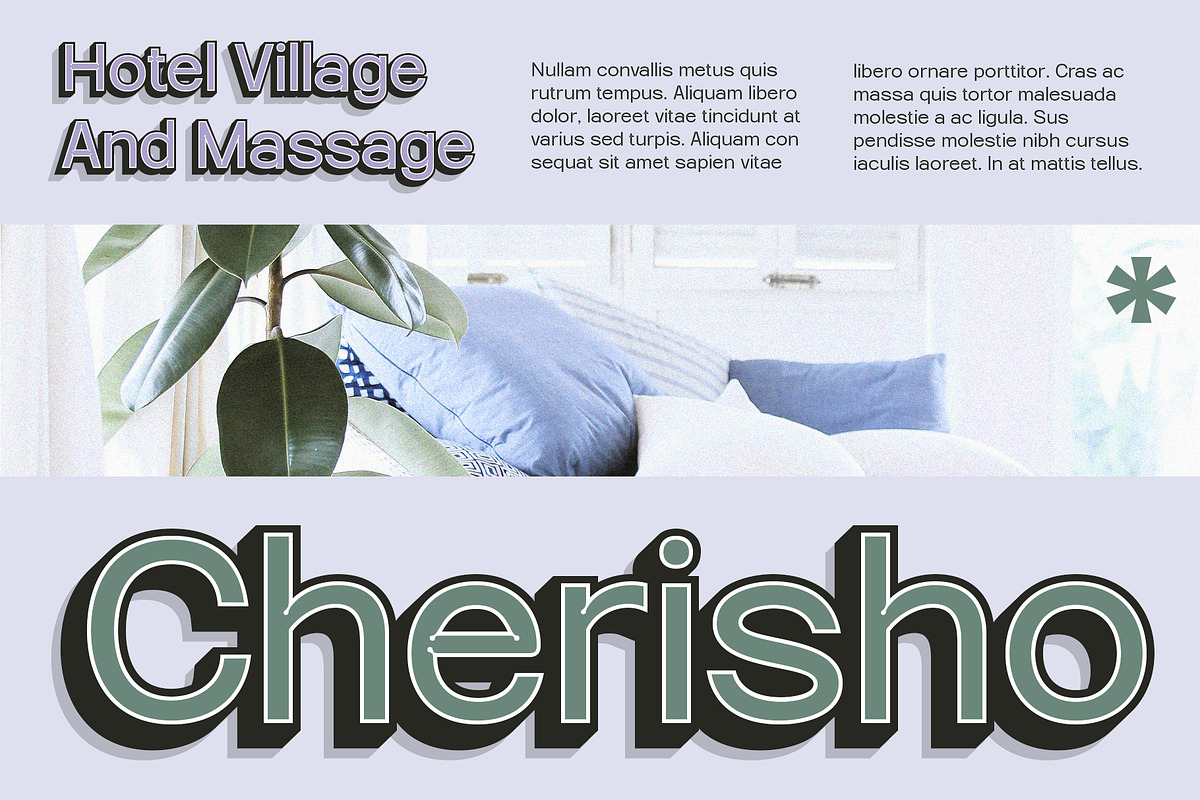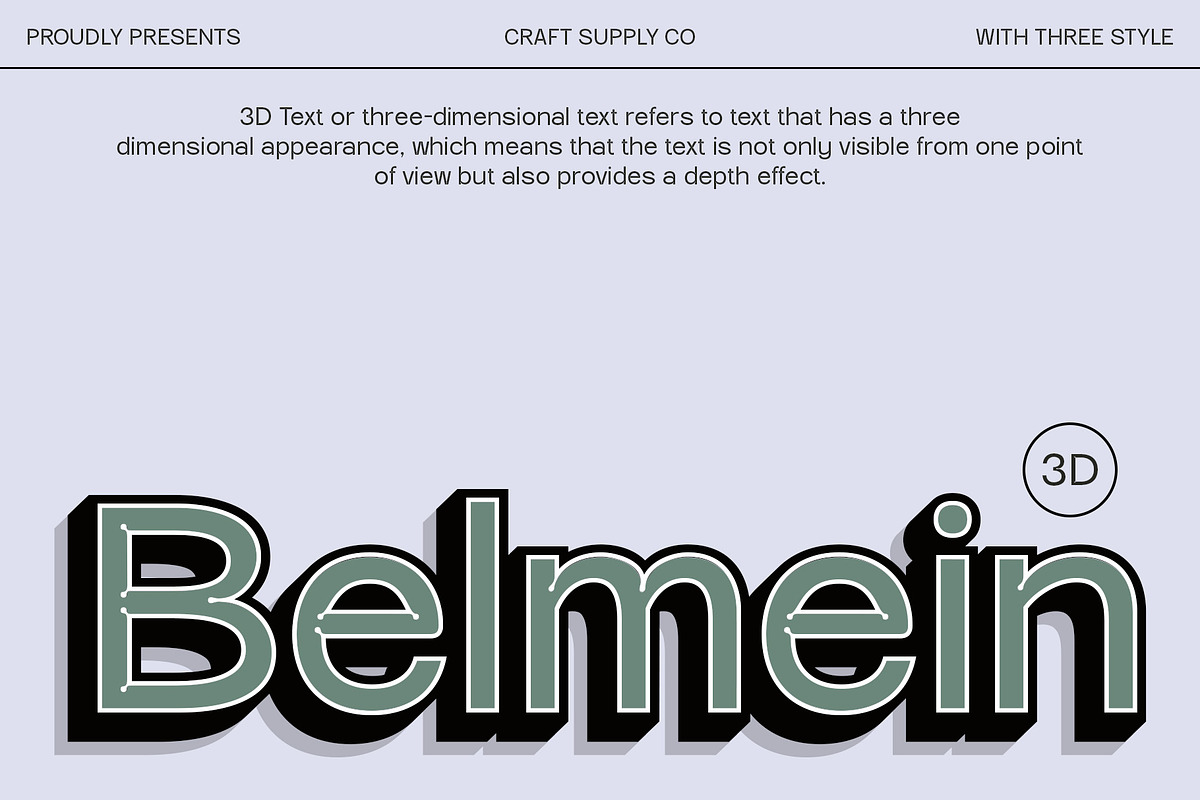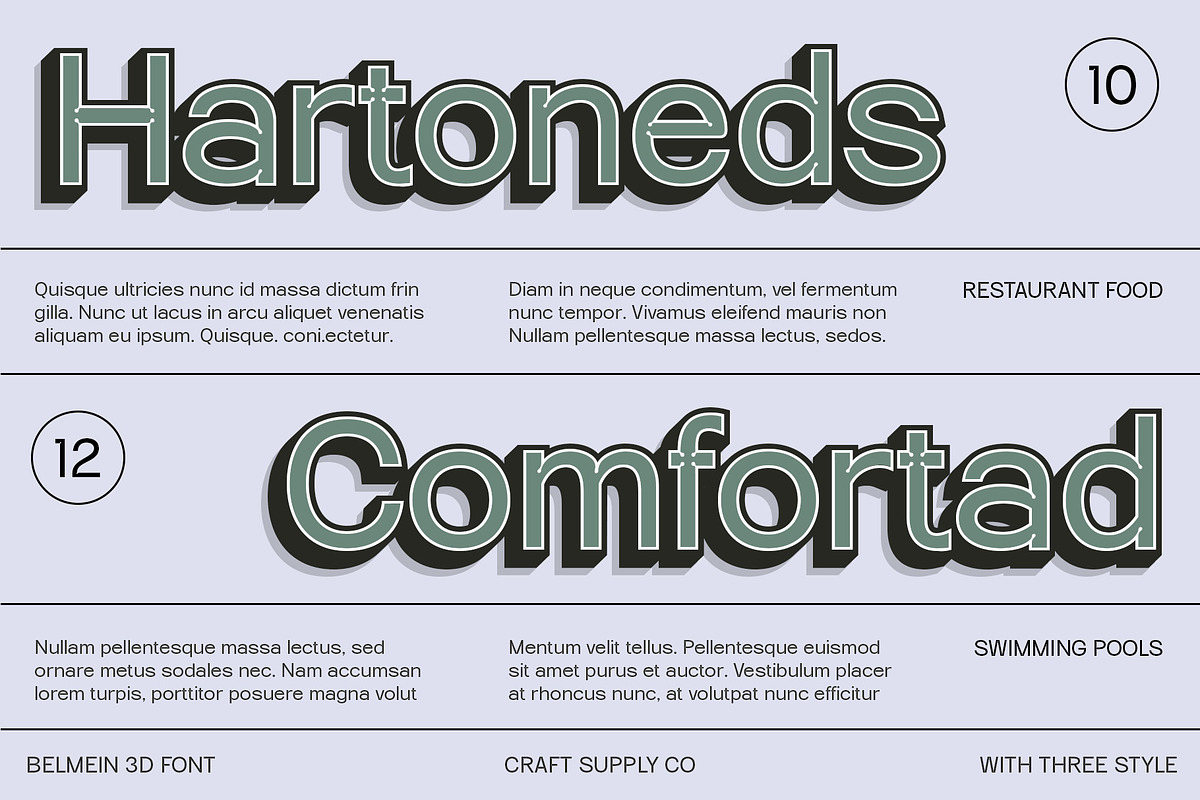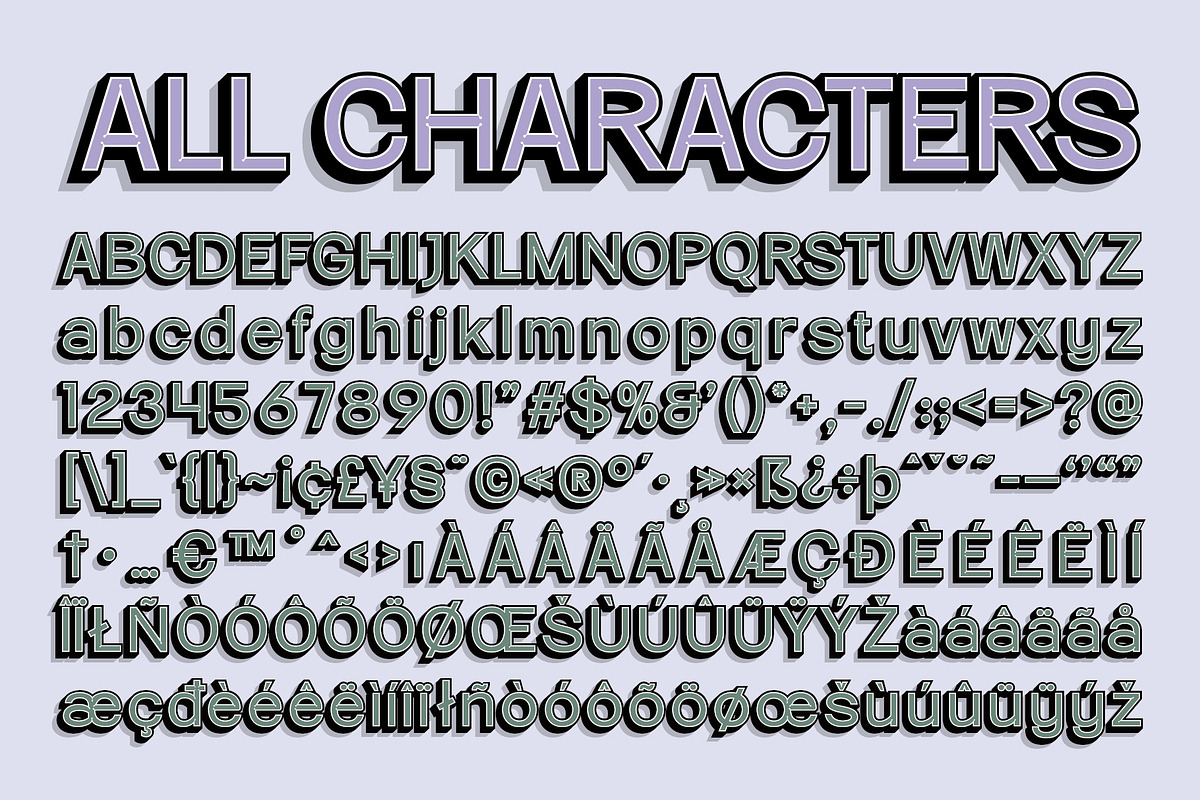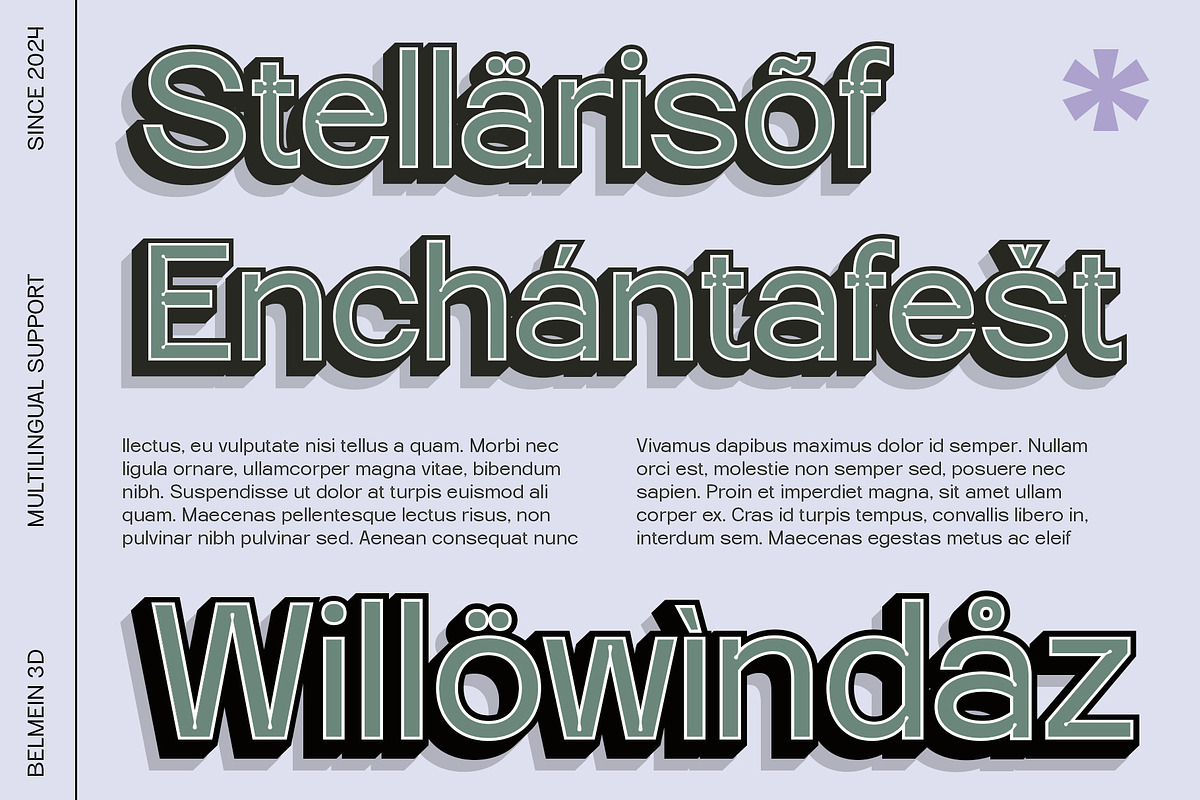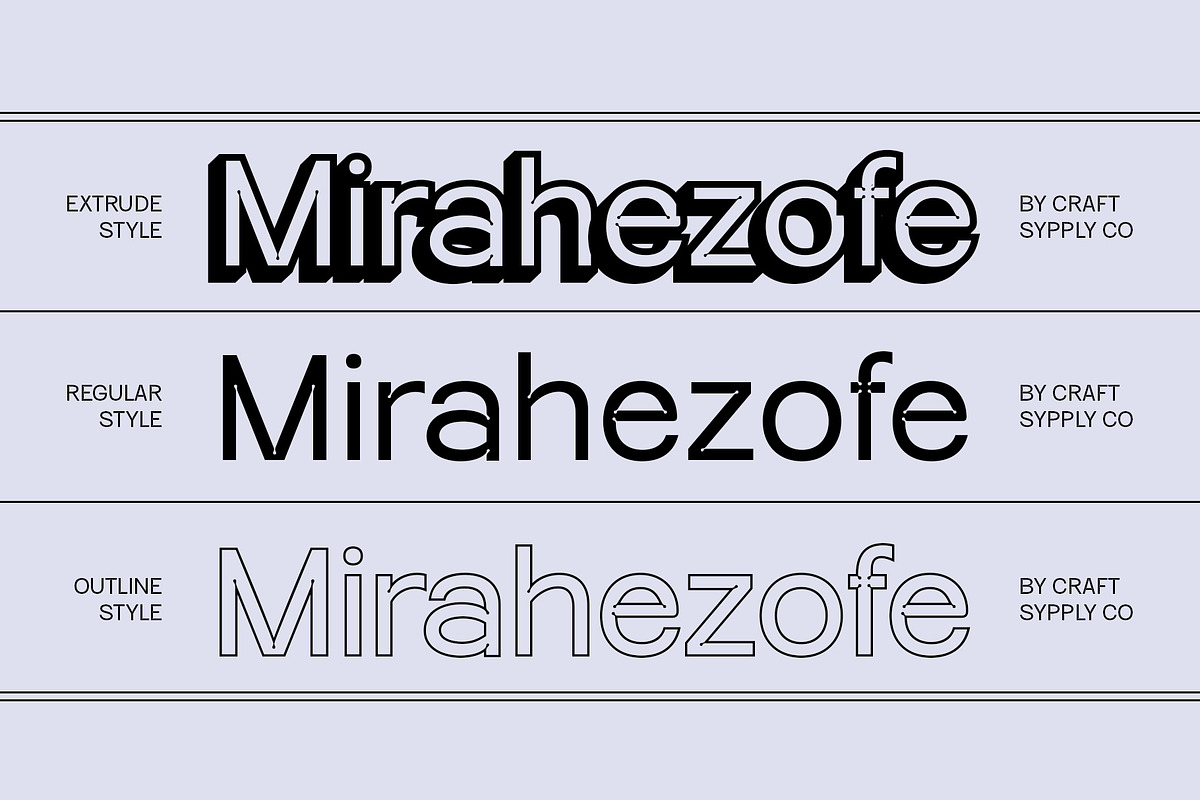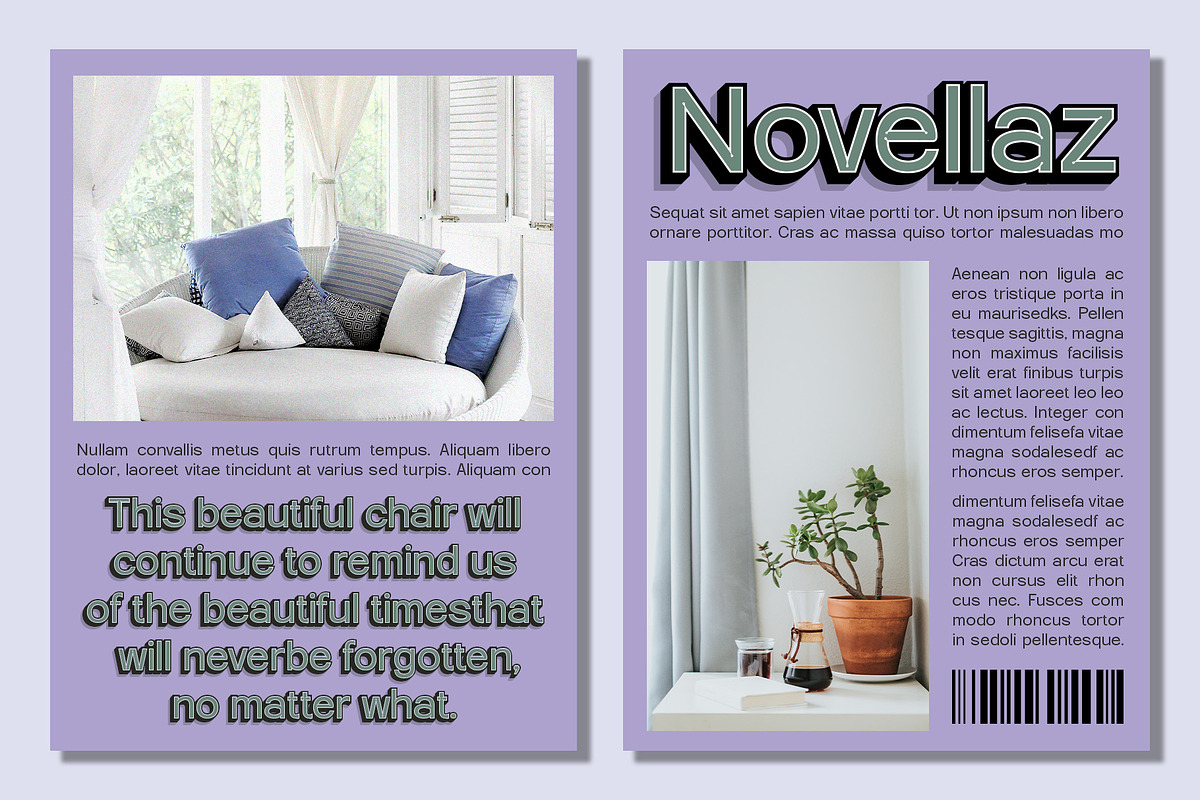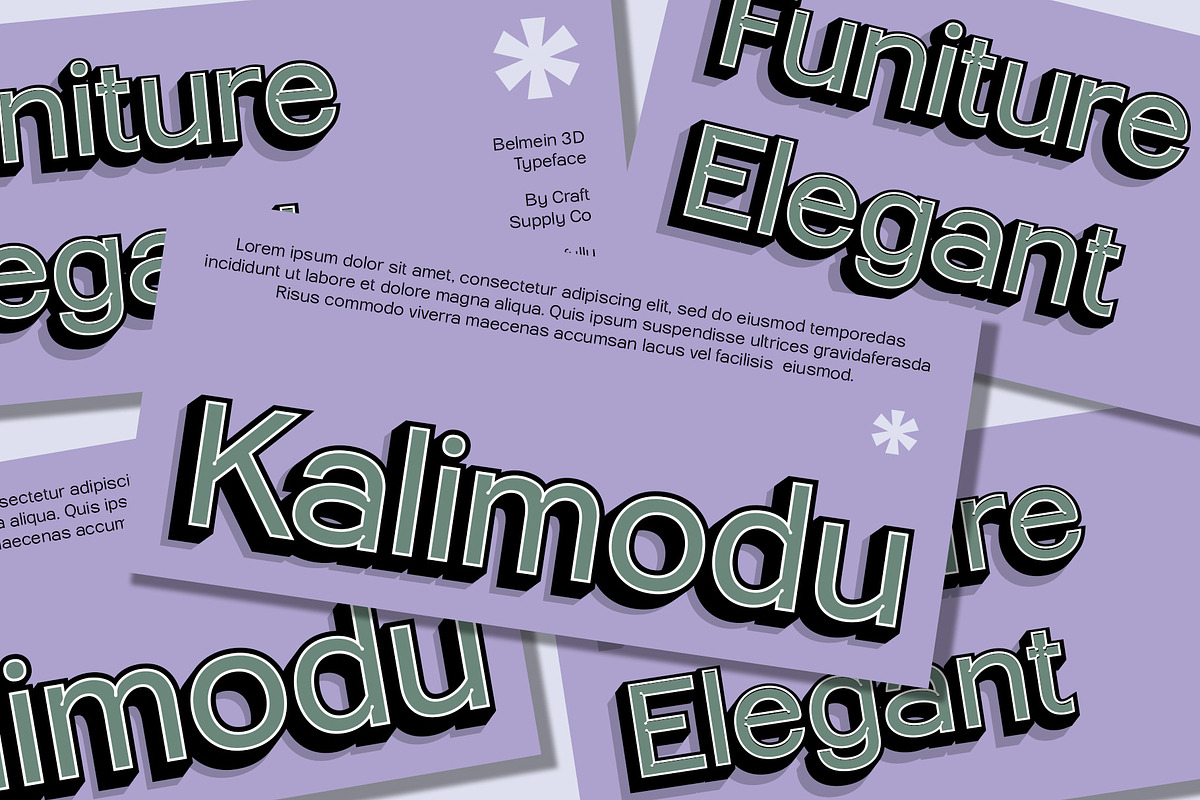
Belmein 3D
Belmein 3D Font: Modern Sans-Serif Font with Grotesk and Inktrap Features
Unique Aesthetic with Grotesk and Inktrap Features Belmein 3D merges the clean, functional design of a grotesk sans-serif with the depth-enhancing inktrap feature, all enhanced by a striking 3D effect. The grotesk design ensures simplicity and strong form, while the inktrap detail optimizes readability and ink flow, making it both practical and visually appealing.
Textured and Dynamic 3D Effect The 3D effect adds significant visual dimension, giving Belmein 3D a textured and dynamic appearance. This feature creates a modern, eye-catching look that stands out in any design, providing both depth and a sophisticated edge.
Ideal for Professional and Sleek Applications Perfect for branding, advertising, and web design, Belmein 3D brings a sleek and professional touch to your projects. Its modern and clean aesthetic, combined with compelling visual depth, makes it an ideal choice for applications that require a contemporary and engaging appearance.
Blending Modernity with Visual Depth Belmein 3D combines a modern, functional style with a unique 3D dimension. The result is a font that not only meets the demands of professional design but also adds an innovative and distinctive flair to your visual communications.